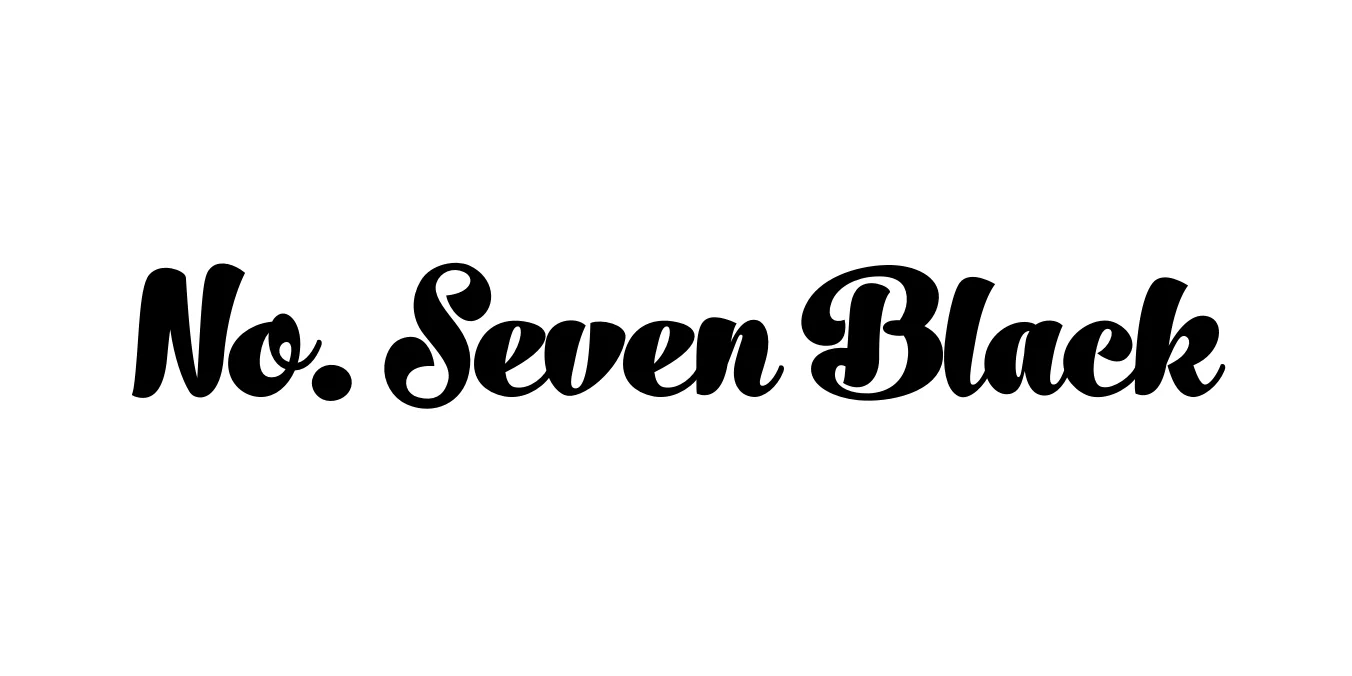
No. Seven Black
Designed by Emil Bertell
No. Seven Black is a heavy, high-impact brush script font designed by the renowned Finnish type designer Emil Bertell of Fenotype. This weight represents the boldest variant in the No. Seven family, characterized by its fluid, hand-painted aesthetic and rhythmic letterforms. Inspired by vintage signage and mid-century advertising, it captures a perfect balance between professional craftsmanship and a casual, humanistic feel, making it stand out in any display setting.
The typeface is rich with OpenType features, offering a wide array of alternates, swashes, and ligatures that allow for a truly customized hand-lettered appearance. Its thick strokes and smooth curves ensure that it remains legible and striking even in complex layouts. Designed for versatility, No. Seven Black is a go-to choice for designers who need a script font that carries significant visual weight without sacrificing elegance or flow.
No. Seven Black Best Uses
Excellent for creating bold, memorable brand marks with a vintage flair.
Ideal for food and beverage labels requiring a premium, artisanal look.
High visibility makes it perfect for event headlines and promotional graphics.
Works beautifully on t-shirt designs and merchandise branding.